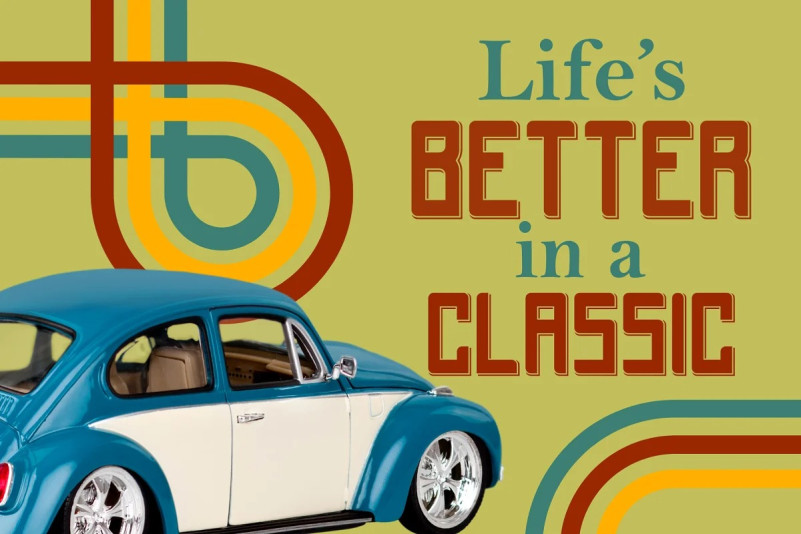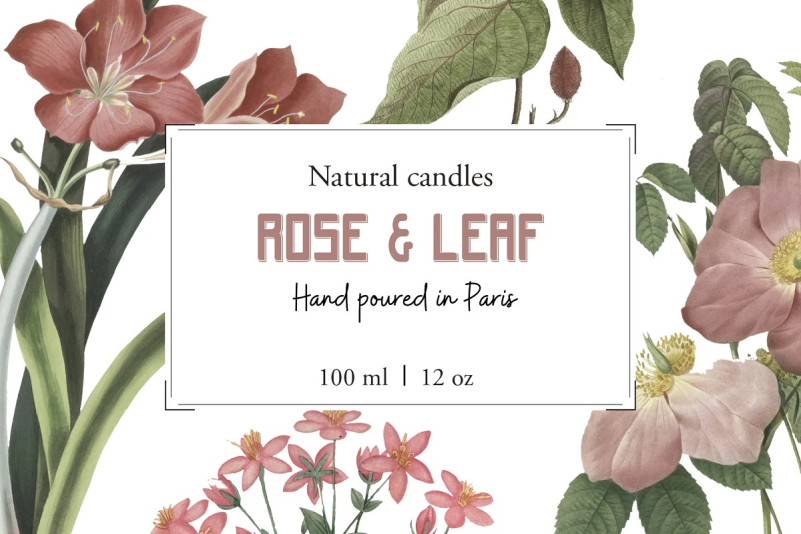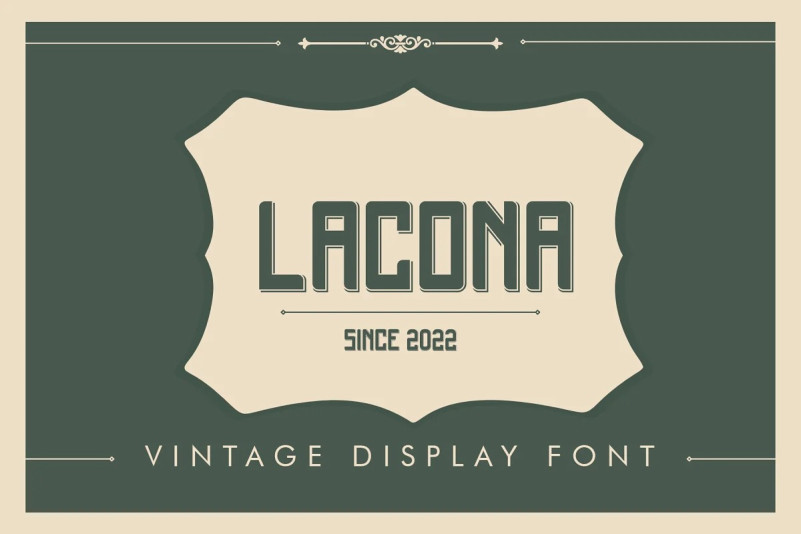
Lacona Font
Lacona Display Font,  an inspiring vintage display. This font gives a feel of a vintage, classic, old, and retro. this font is perfect for people looking for vintage aesthetic or simple logo-type. Suitable for any graphic designs such as branding materials, t-shirt, print, business cards, logo, poster, t-shirt, photography, quotes .etc.